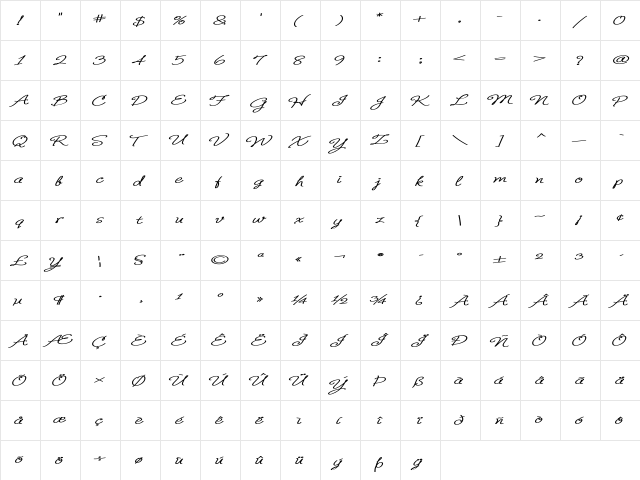
B de bonita regular Regular
| Foundry | deFharo |
| Designer | deFharo |
Design Context for B de bonita regular Typeface
B de bonita regular is a composed and adaptable typeface that performs quietly and consistently across a wide range of design contexts.